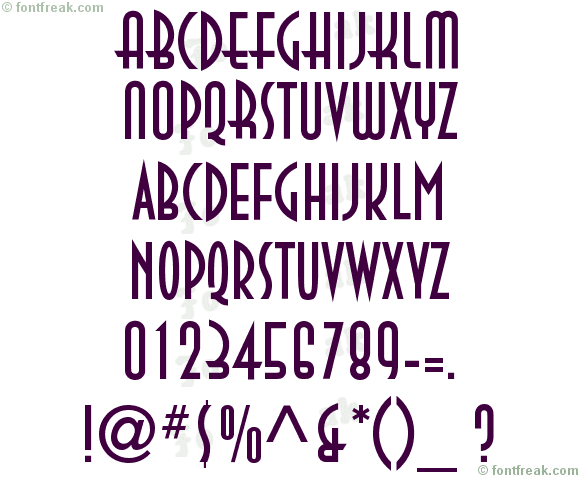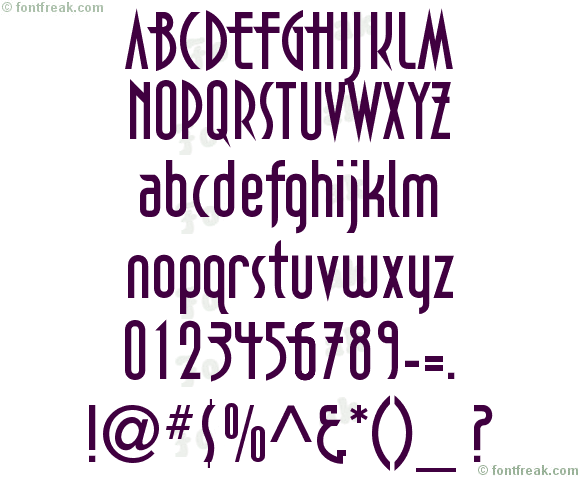
DecoTech TL
DecoTech
About DecoTech TL
DecoTech TL, designed by Justin Callaghan, is a striking display font that embodies a modern, art deco aesthetic. This decorative typeface features bold, geometric shapes and sharp lines, making it an eye-catching choice for various creative projects. The stroke weight is consistent, providing a strong visual presence, while the minimal contrast between thick and thin strokes enhances its sleek appearance. The generous spacing between characters lends a sense of openness, making the text easily legible and visually appealing.
This font is particularly well-suited for use in wedding invitations, where its elegant yet contemporary style can add a touch of sophistication. Additionally, DecoTech TL shines in movie posters, where its dramatic flair can capture attention and convey a sense of excitement. Restaurant menus can also benefit from this font, as it can elevate the dining experience with its unique character. Graphic designers and content creators will find it a valuable asset for branding projects, promotional materials, and social media graphics, allowing them to create a memorable impact.
What sets DecoTech TL apart is its ability to blend modernity with a retro vibe, making it perfect for projects that require a distinctive and stylish touch. This font not only captures the essence of art deco design but also adapts seamlessly to contemporary aesthetics, making it a versatile choice for any creative endeavor. Don't miss out on the DecoTech TL font free download to elevate your design projects today.